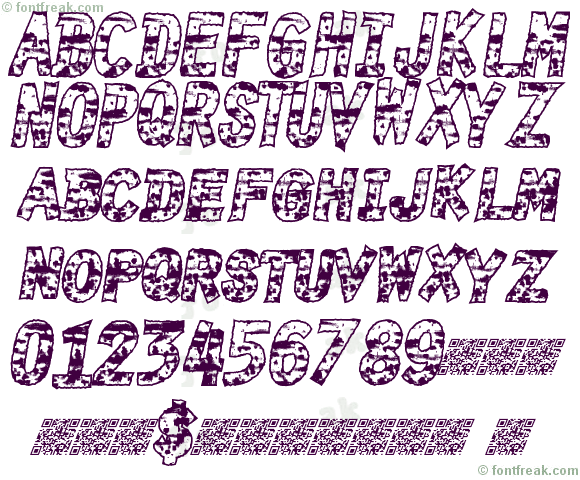
BurnTime
About BurnTime
The BurnTime font, created by XEROGRAPHER FONTS in 2014, is a distinctive display typeface that captures attention with its unique, grungy aesthetic. This font falls into the decorative category, characterized by its rough, textured strokes that evoke a sense of raw energy and a rebellious spirit. The irregular stroke weight and high contrast add depth and dimension, making it visually striking and memorable. The spacing between characters is thoughtfully designed, ensuring legibility while maintaining a playful vibe.
BurnTime is ideal for various creative applications. It shines in contexts like music event posters, where its edgy look can effectively communicate a sense of excitement and urgency. This font is also perfect for branding and logo design for businesses in the arts or entertainment sectors, giving a bold statement that resonates with a youthful audience. Additionally, it can be utilized in merchandise design, particularly for apparel and accessories that aim to capture a punk or alternative aesthetic. Social media graphics and promotional materials for events are other excellent use cases, where the font can help to create impactful visuals that stand out in crowded feeds.
The target audience for BurnTime includes graphic designers, small business owners, and content creators who seek to infuse their projects with a unique style. This font appeals to those who appreciate a touch of creativity and individuality in their designs.
What sets the BurnTime font apart is its ability to blend artistic flair with functionality. Its raw, distressed look draws the eye, making it a versatile choice for projects that require a strong visual statement. Whether you're designing for a music festival or creating eye-catching promotional content, BurnTime font free download offers the perfect blend of style and practicality.